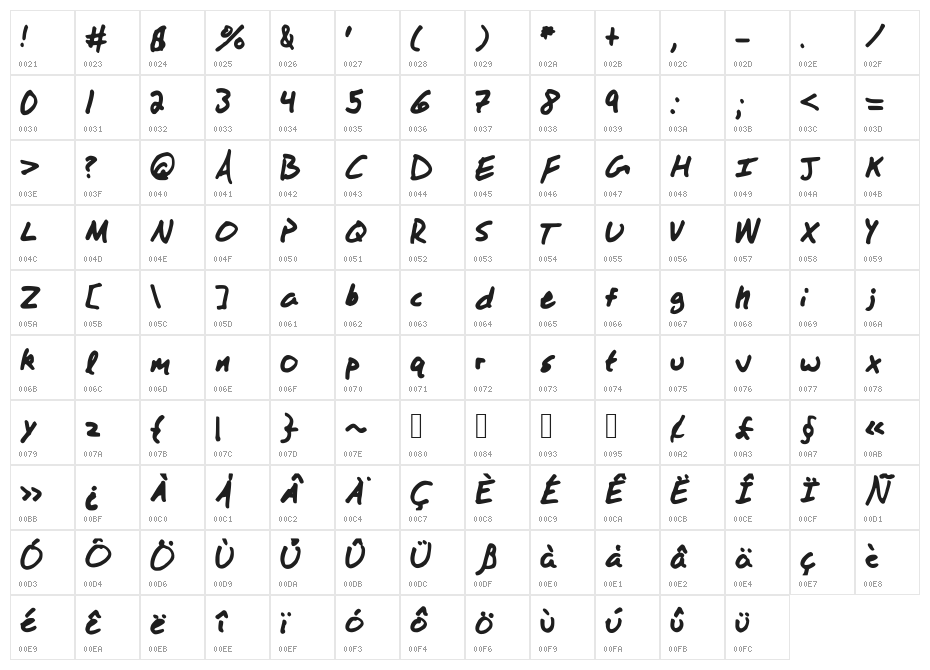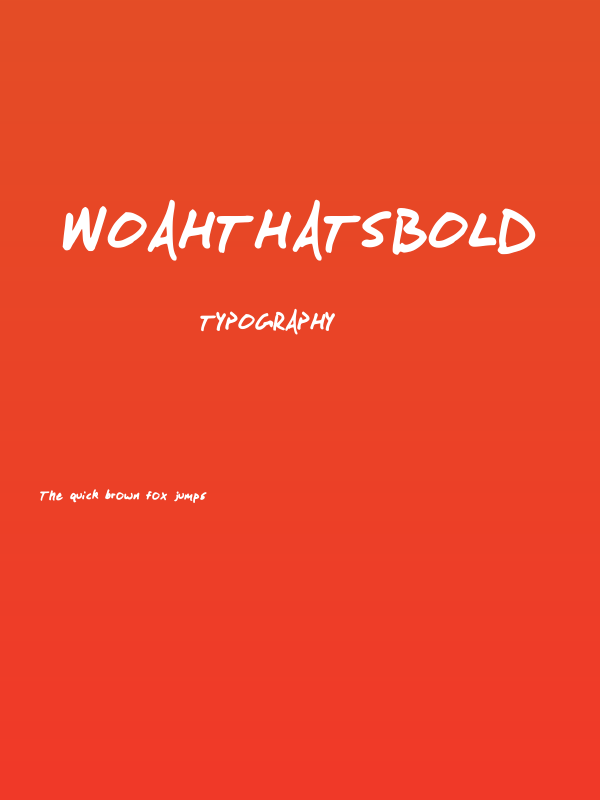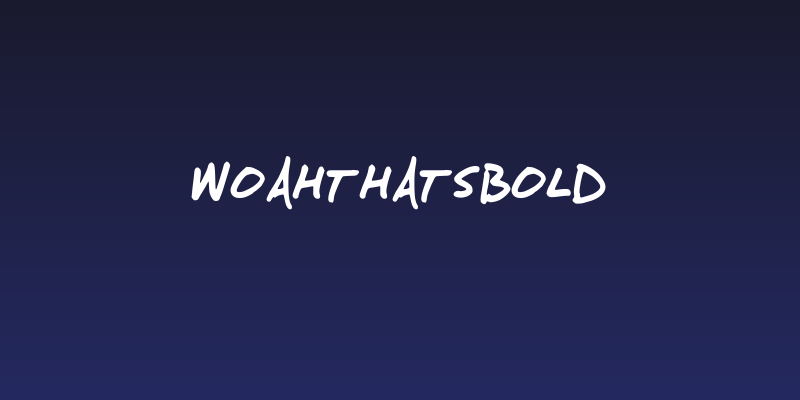
WOAHThatsBold Font
WOAHThatsBold Description
This font features a bold, handwritten style with a playful and energetic appearance. The characters are crafted with a thick stroke, giving them a strong presence on the page. The letters have a casual, informal feel, reminiscent of quick, expressive handwriting. The uppercase and lowercase letters maintain a consistent style, with rounded edges and a slight slant, adding to the dynamic look. The numerals and special characters follow the same bold and lively design, ensuring uniformity across all text elements. This font is ideal for projects that require a personal touch or a sense of spontaneity.
| Proposed Projects | Great for greeting cards, posters, social media graphics, and branding that requires a personal, informal touch. |